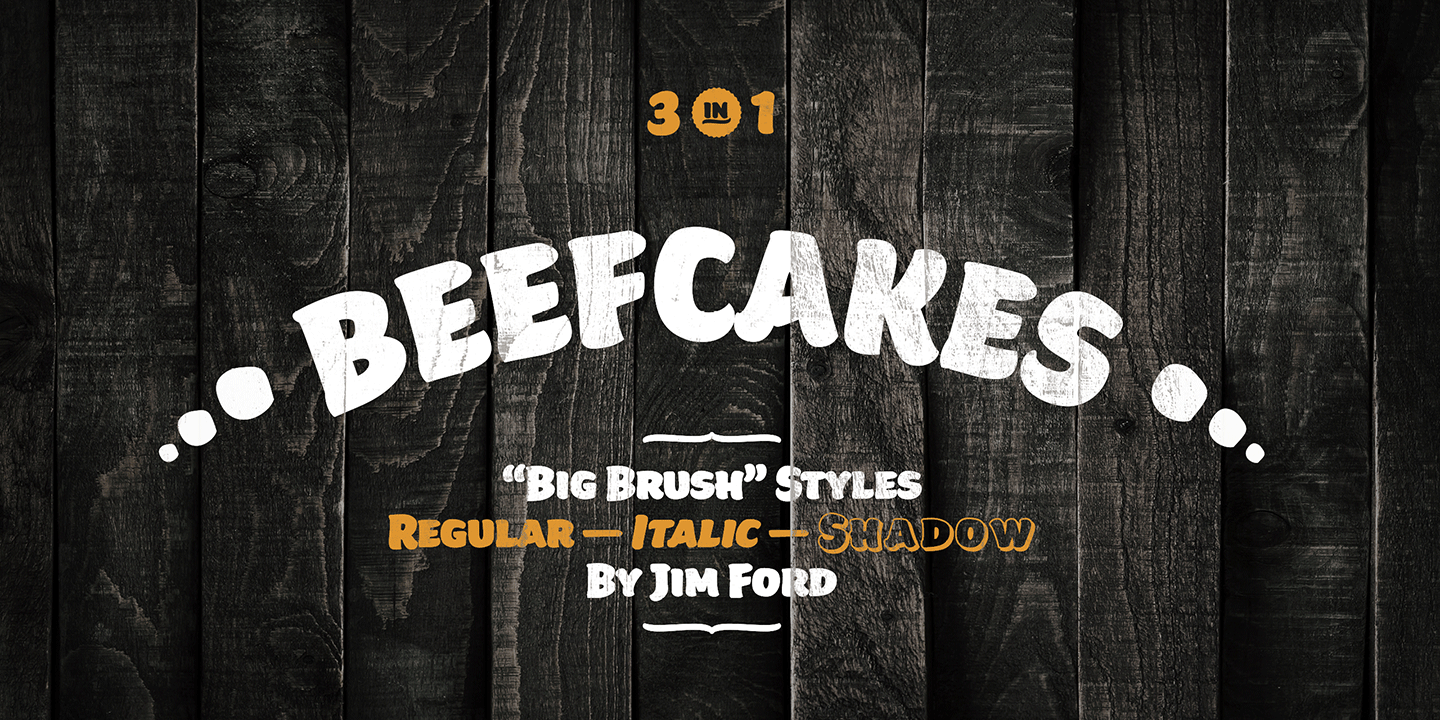
Beefcakes Font is ideal for bold and playful applications including burger restaurant branding, comic book titles, cartoon character designs, fun food packaging, retro diner signage, children's entertainment materials, playful advertising campaigns, and humorous poster designs. This chunky typeface brings muscular personality and lighthearted strength to projects requiring maximum visual impact with a sense of humor and approachable boldness.
What makes Beefcakes Font exciting is its perfect combination of massive visual weight with playful charm that creates instant recognition and memorable character. The font features extra-bold letterforms with rounded edges and inflated proportions that suggest strength and confidence while maintaining friendly approachability. Its robust character design incorporates comic book influences with sturdy construction that commands attention while communicating fun and accessibility rather than intimidation.
The Beefcakes Font family includes multiple weight variations from bold to ultra-black, each maintaining the signature chunky character and playful appeal. The family encompasses regular and outline styles designed for maximum versatility in entertainment and food service applications. Special features include decorative alternates and fun symbols that enhance the font's ability to communicate humor and bold personality.
Entertainment brands and food service businesses consistently select Beefcakes Font Free Download for projects requiring bold typography with playful character and memorable impact. Whether developing cartoon branding, creating fun restaurant materials, or designing entertainment industry graphics, this font delivers exceptional personality and approachable strength. Its unique combination of massive visual presence and friendly humor makes it an essential tool for creative professionals working on family-friendly projects, food service branding, and entertainment applications that need typography reflecting strength, fun, and memorable character that appeals to audiences seeking bold, approachable experiences.